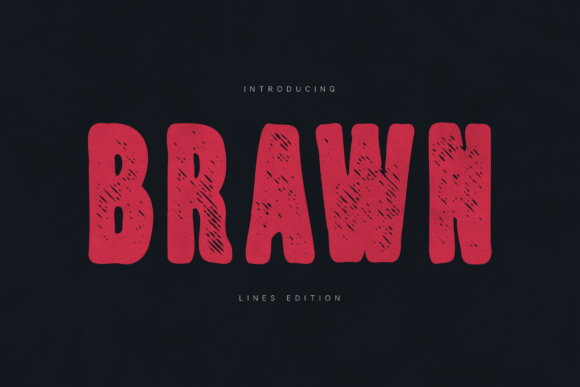
The Power of Brawn: Unleashing a Bold, Hand-Crafted Display Font
I’ll never forget the design project that led me to discover Brawn Font. I was working on a branding campaign for a local craft brewery, and I needed a font that could convey a sense of rugged, small-batch authenticity. After hours of searching, I stumbled upon Brawn – a bold, hand-crafted display font that instantly resonated with the project’s vibe. Its raw, textured finish and strong personality made it the perfect fit for the brewery’s labels and merchandise.
An Honest Review of Brawn Font
What I Love About Brawn ✨
• ✅ Unique Texture: The rough ink texture and irregular edges give Brawn a natural, printed feel that’s perfect for creating statement designs.
• ✅ Versatility: With uppercase, lowercase, numbers, punctuation, multilingual support, and special characters, Brawn is versatile enough for both bold titles and expressive layouts.
• ✅ Handmade Look: Brawn’s hand-crafted feel brings an authentic, organic touch to your typography – ideal for designs that need a personal, human touch.
While Brawn is an excellent font, it’s not without its quirks. For instance, the font’s bold texture can sometimes make it difficult to read at smaller sizes. Additionally, the irregular edges may not be suitable for designs that require precision or a high level of legibility.
• 🤔 Legibility at Small Sizes: Brawn’s bold texture can make it challenging to read at smaller sizes, so it’s best used for headlines or titles.
• 🤔 Limited Use in Body Text: Due to its texture and irregular edges, Brawn may not be the best choice for body text or long-form content.
Exploring Brawn’s OpenType Features
Brawn supports a range of OpenType features, including stylistic alternates, ligatures, and swashes. To access these features, use the “Glyphs” panel in Illustrator or the “Character” panel in Photoshop.
Feature Description
Stylistic Alternates Provides alternative glyphs for letters and symbols, allowing for more visual interest and variety.
Ligatures Combines specific letter pairs to create a more cohesive, connected look.
Swashes Adds decorative flourishes to letters and symbols, ideal for creating statement designs.
The Backstory of Brawn Font
Brawn was designed by a team of typographers who sought to create a font that embodied the spirit of handmade craftsmanship. Inspired by traditional printing techniques and the imperfections of hand-crafted typography, Brawn brings a unique, organic feel to the world of digital design.
Q: What is Brawn Font best used for?
A: Brawn Font is ideal for bold, statement designs such as posters, branding, packaging, merchandise, and social media graphics.
Q: Can I use Brawn Font for body text?
A: While Brawn can be used for body text, its bold texture and irregular edges make it better suited for headlines and titles.